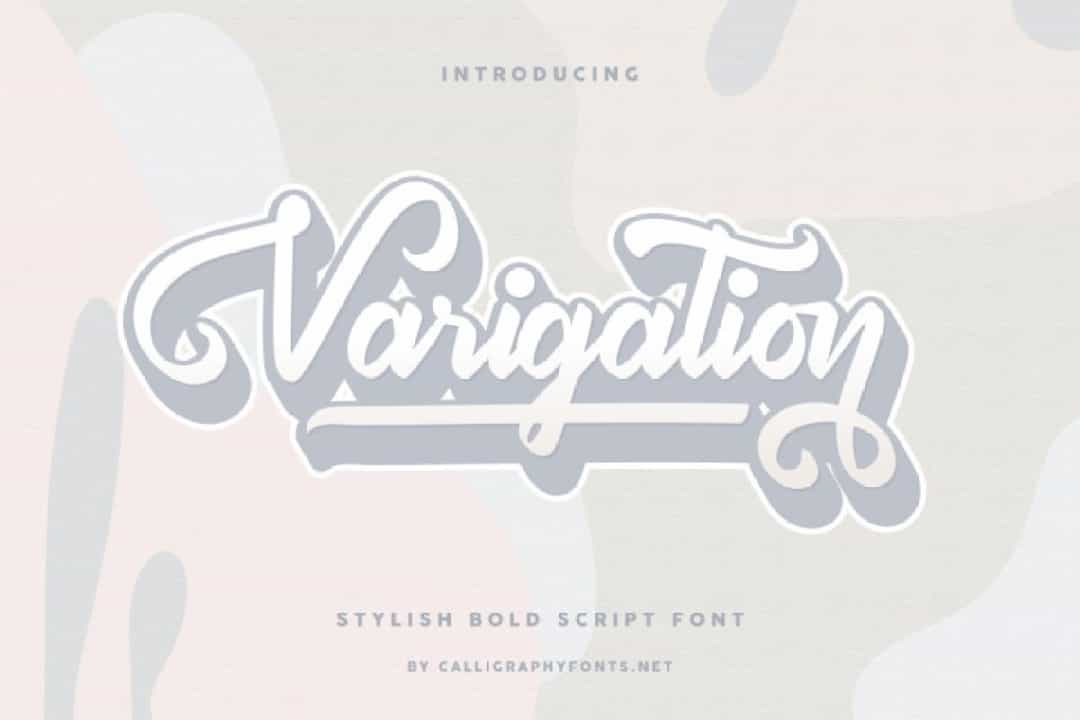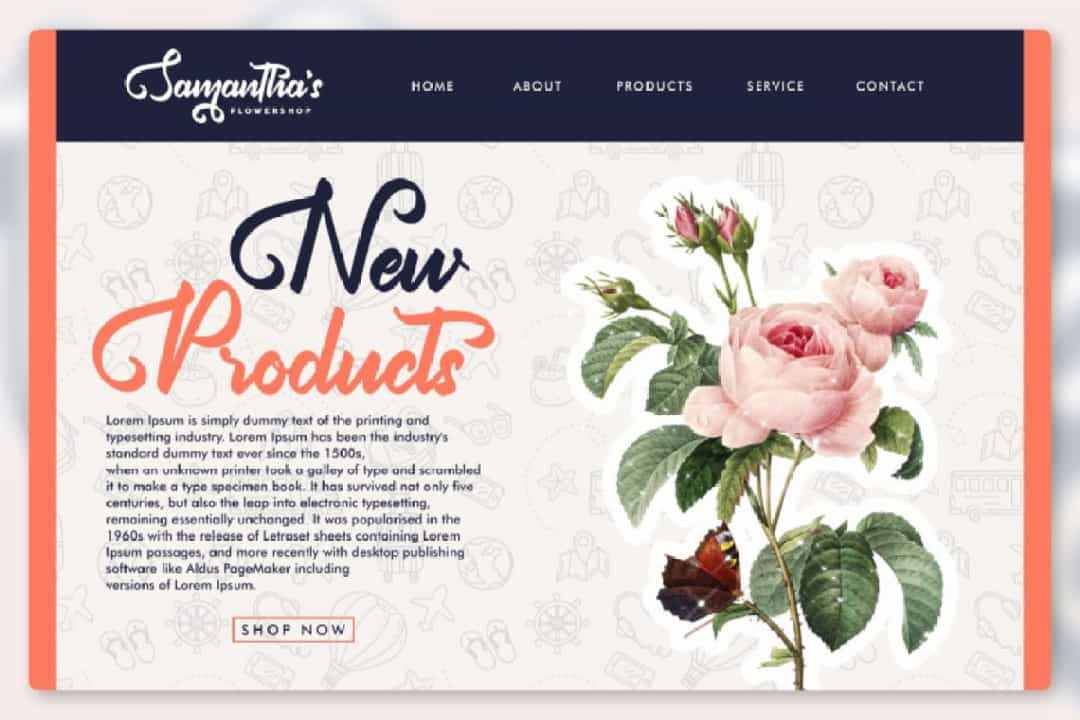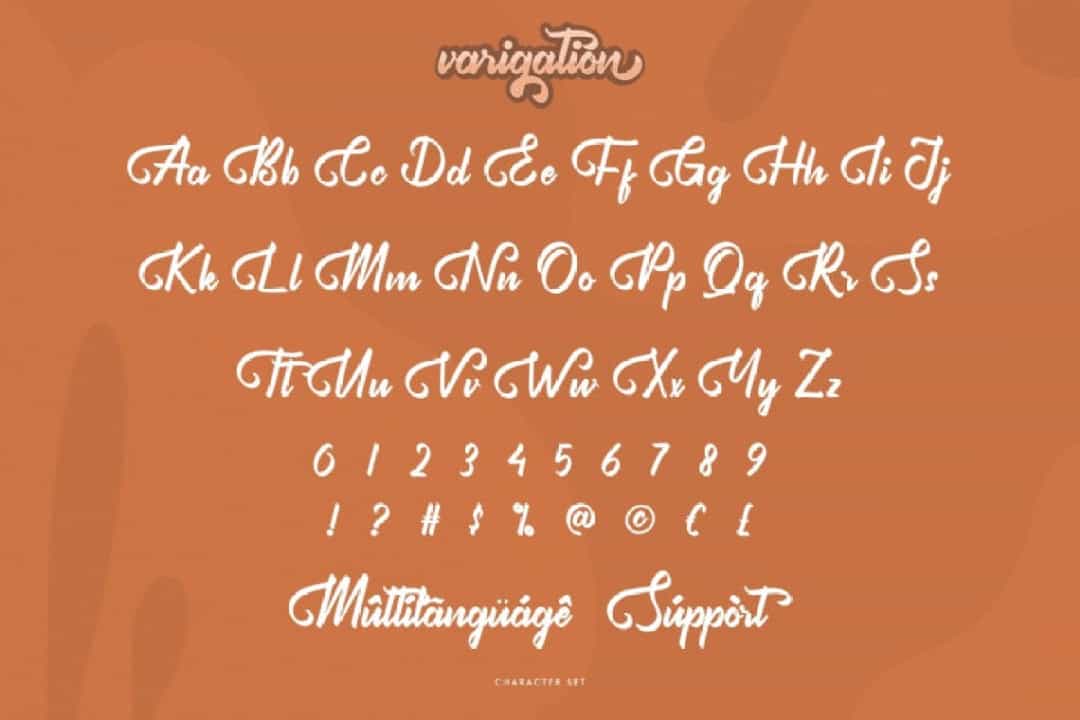
Varigation is a stylish bold vintage classic calligraphy font that reminds on old times and letterpress printing. It has stunning characters which will suit the font for use in creating logos, Invitations, and flyers. It is unique in design: beautiful and graceful characters with retro luxurious logo for the lettering, Varigation is undeniably a vintage as well as modern brush font.